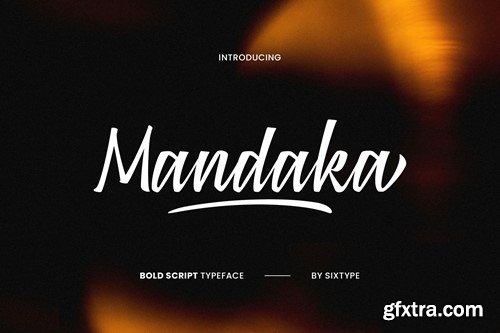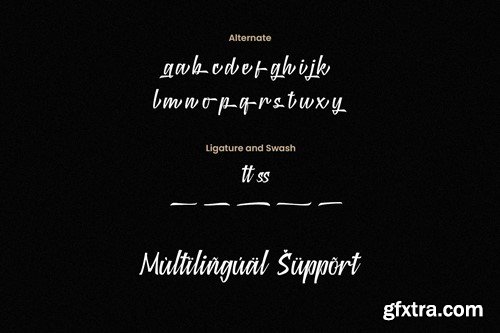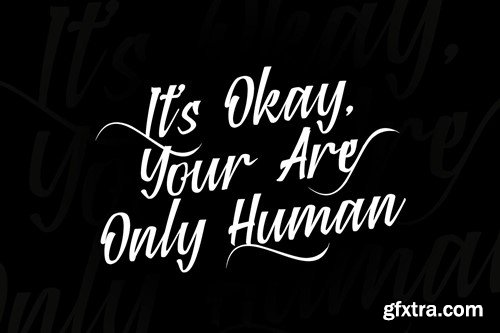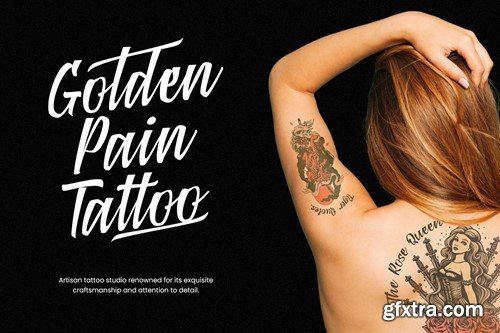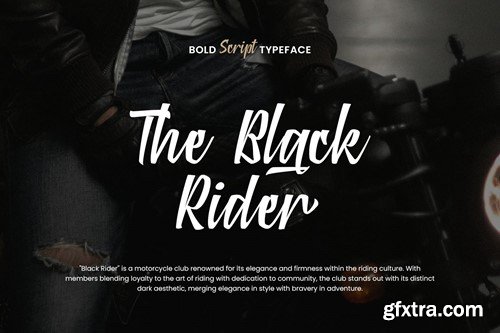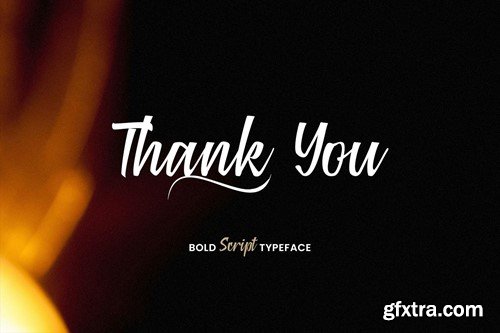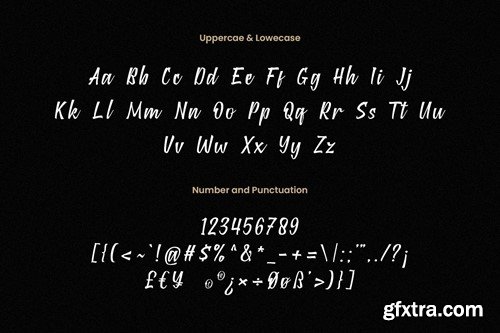
MANDAKA - BOLD SCRIPT TYPEFACE GFH5KED
Mandaka - Bold Script Typeface
Mandaka Font embodies a bold and assertive script style, exuding a distinctly masculine vibe. Perfectly suited for projects requiring a strong and confident aesthetic, Mandaka Font adds a touch of authority and power to invitations, branding materials, headlines, posters, and more. File Includes: Note: Kindly be informed that the images and photographs within the model are for presentation purposes only and are not included in the download file. Thanks for your cooperation, and enjoy!